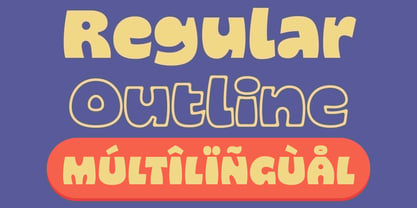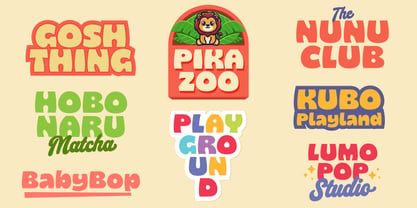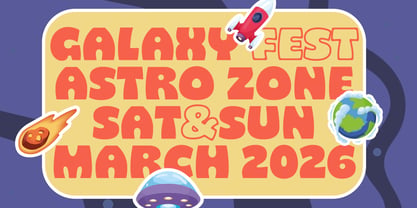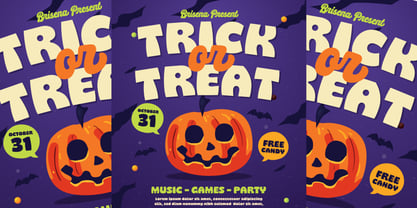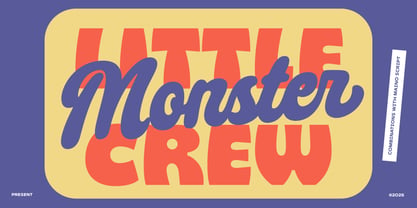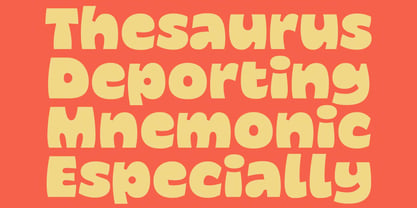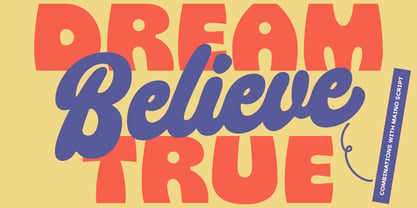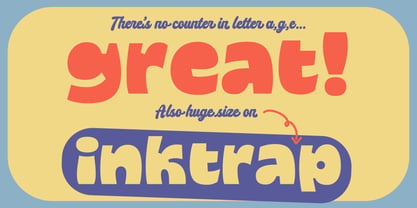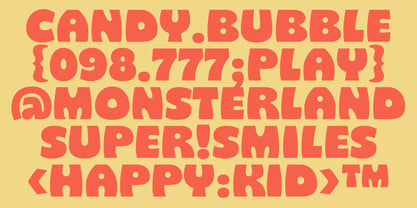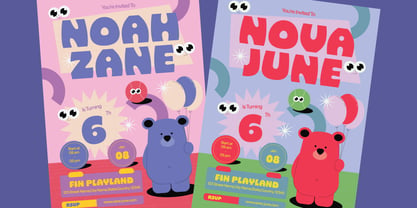
Gosh Thing
by Adam Fathony
The Gosh Thing Font Family was designed by Adam Fathoni Haris and published by Adam Fathony. Gosh Thing contains 2 styles and family package options. More about this family
Gosh Thing is a chunky, cheerful font that radiates fun vibes and big smiles! This bold, round typeface is brimming with character, making it ideal for children's products, playful branding, event posters, or any project that needs a joyful touch. Gosh Thing embraces a lighthearted aesthetic with its friendly, bouncy appearance that combines a retro feel with a contemporary twist. The soft shapes and chunky curves of each letter create a sense of happiness and playfulness. With two styles available — Regular and Outline — you can easily mix and match for added impact. Perfect for candy packaging, space-themed parties, toy logos, or whenever you want your text to exude joy.